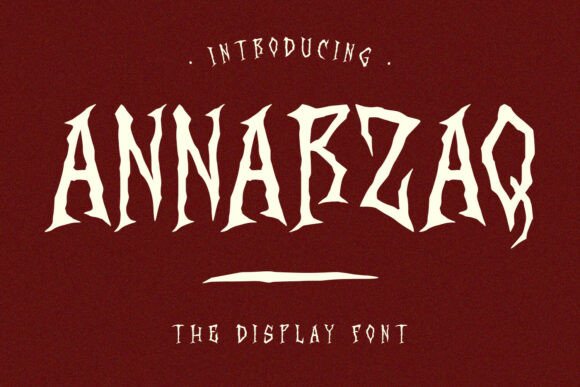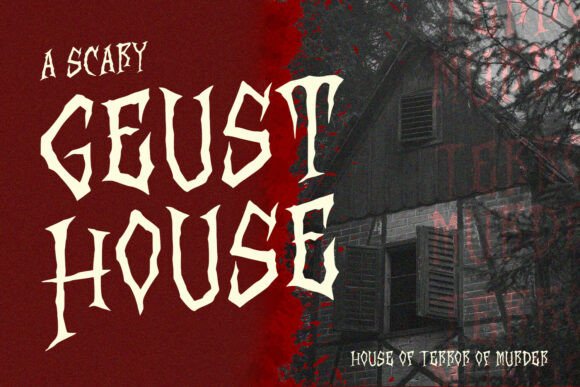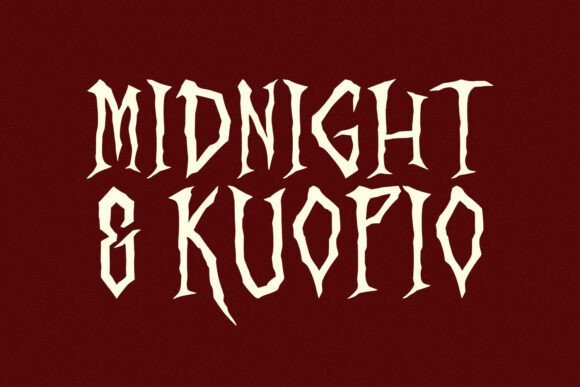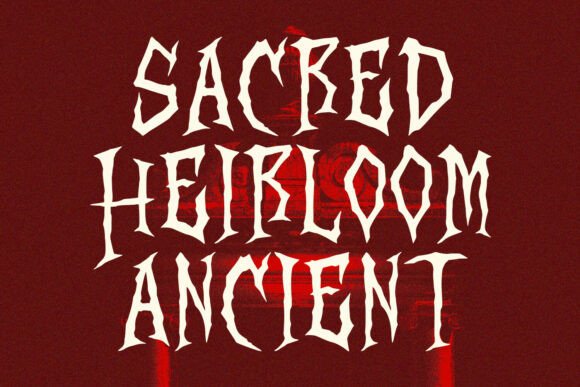
Annarzaq Font: Eerie Display Font for Horror Designs & Movie Posters
About the Annarzaq Font
Get ready to be inspired by Annarzaq Font, a fresh and dynamic typeface for modern creators. Annarzaq is a bold and spine-chilling display font with jagged edges and gothic influence, perfect for horror themes and dark fantasy visuals. Its eerie, handcrafted style makes it ideal for book covers, movie posters, metal band logos, Halloween decor, or anything that needs a hauntingly unique identity.
Annarzaq’s aggressive aesthetic makes it unsuitable for body text or user interfaces; its jagged edges and high contrast would strain readability in continuous paragraphs. It excels in large-scale applications like headlines, posters, and branding for projects with a dark, edgy feel – think horror films, gothic fashion, or heavy metal music.
Consider pairing Annarzaq with a clean sans-serif like Montserrat for contrast, allowing the display font to dominate while maintaining legibility in supporting text. Alternatively, a classic serif like Garamond could create a sophisticated juxtaposition, tempering the font’s harshness with a touch of elegance. Avoid pairing it with other similarly aggressive fonts; the result would be visually overwhelming.
The font projects a bold, rebellious personality, ideal for brands aiming for a strong, unforgettable visual identity that leans into the macabre or the unconventional.
Annarzaq Font Usage Examples
Annarzaq Font Example